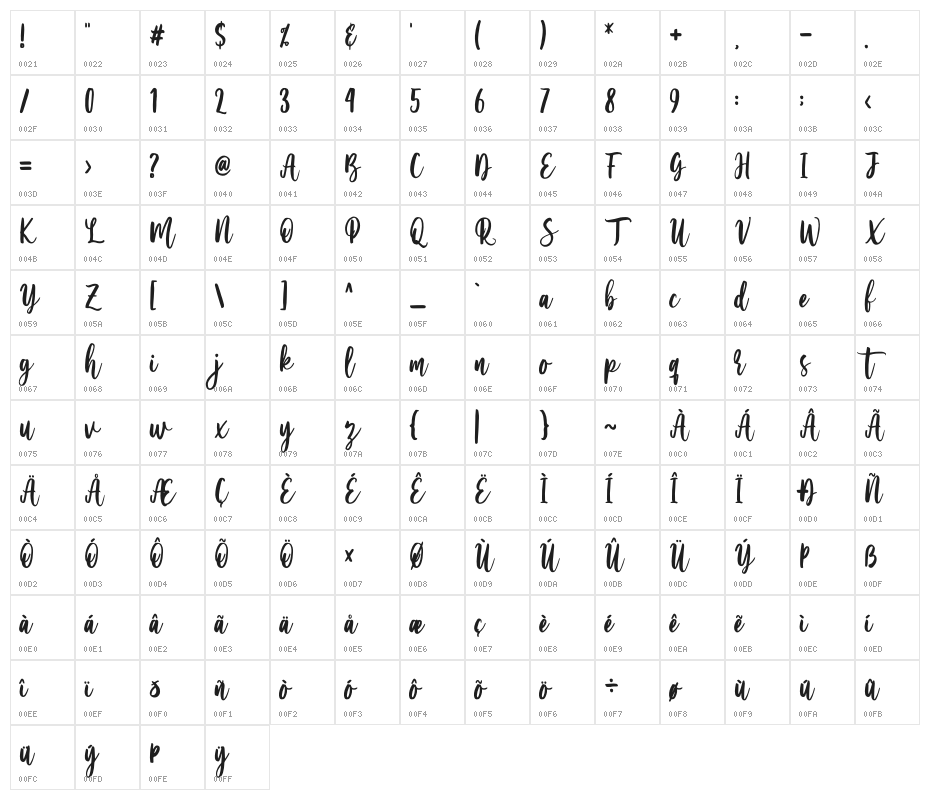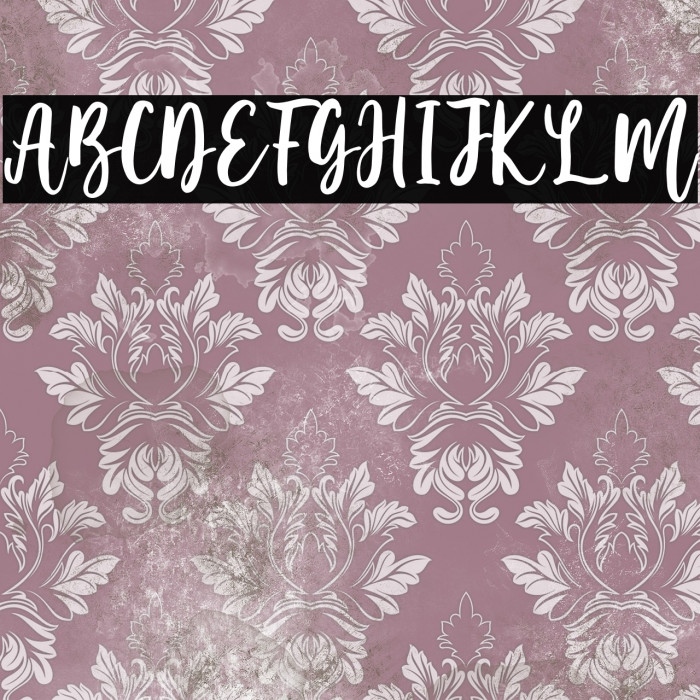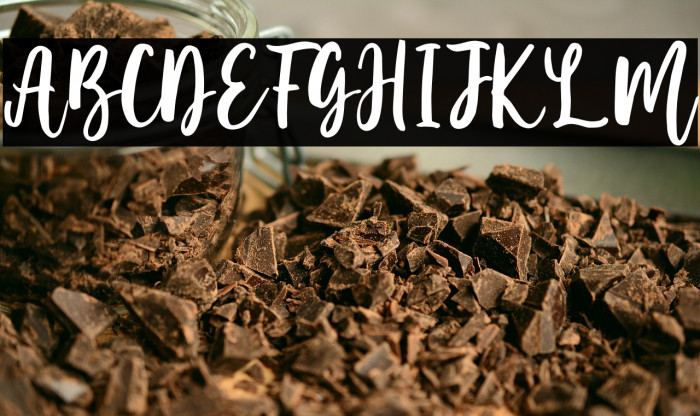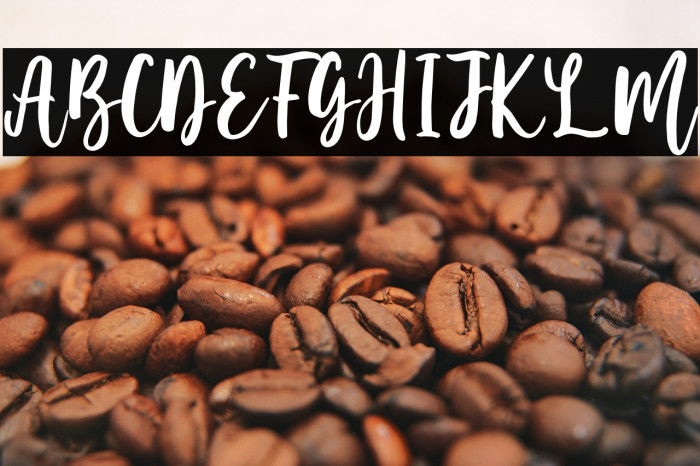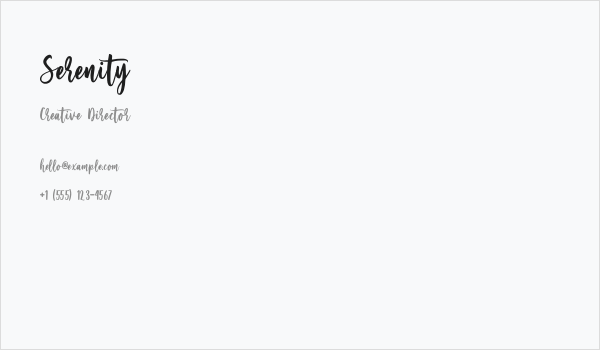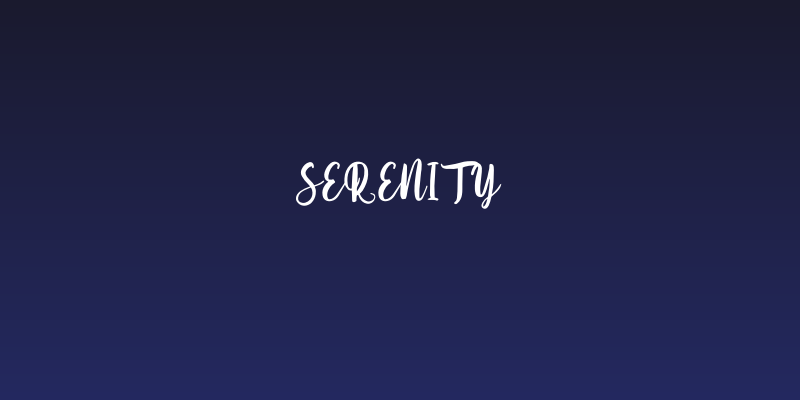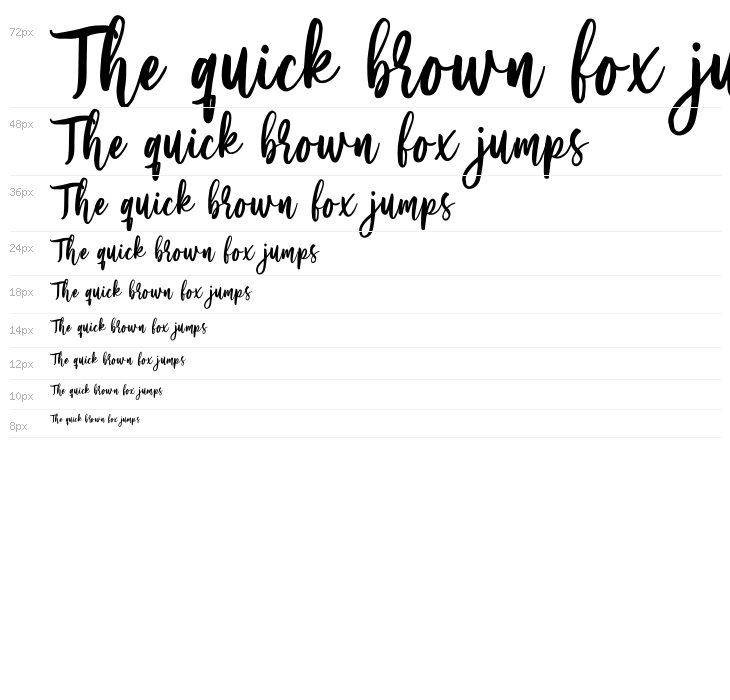
Serenity Font
Serenity Description
This font features a lively and flowing script style, characterized by its bold and expressive strokes. The letters are interconnected, giving it a handwritten appearance that is both elegant and casual. The uppercase letters are slightly more structured, while the lowercase letters exhibit a playful and dynamic flair. The numerals and special characters maintain the same energetic style, making the font versatile for various creative applications. Its boldness ensures readability, while the fluidity of the strokes adds a touch of sophistication.
Overall StyleElegant, Handwritten
Use CaseLogos, Invitations, Decorative text
Proposed ProjectsIdeal for wedding invitations, greeting cards, branding projects, and social media graphics.